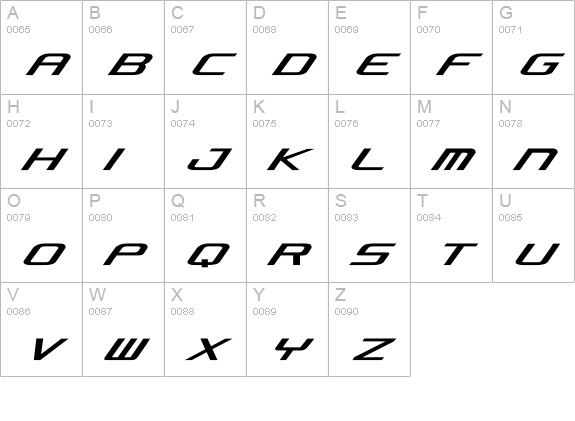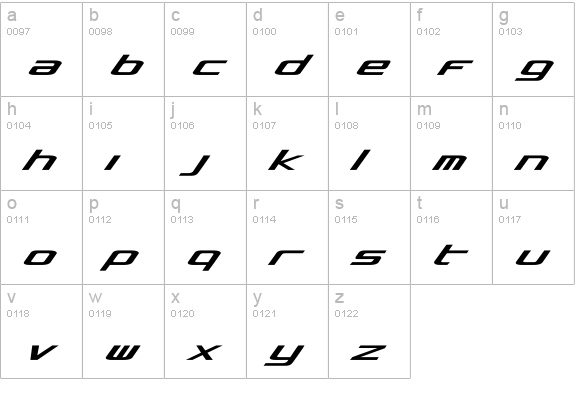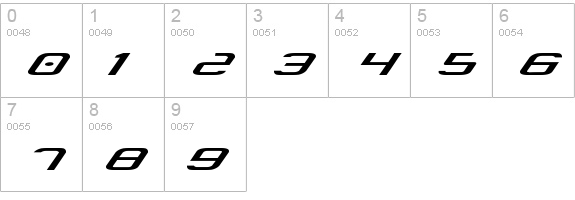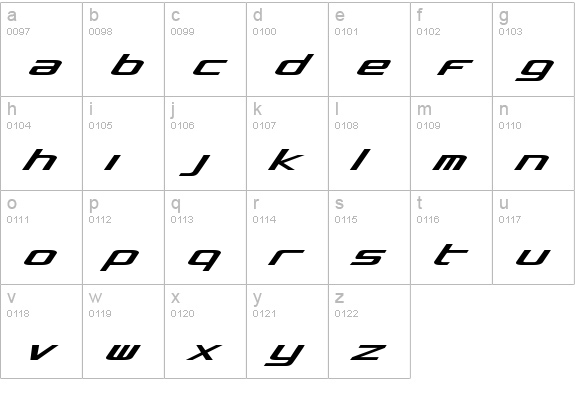
Concielian font is a modern and elegant typeface that exudes sophistication and style. Its sleek lines and smooth curves make it perfect for a wide range of design projects, from branding to editorial layouts. The versatility of Concielian font allows it to be utilized in both print and digital media, making it a valuable addition to any designer's toolkit. What sets Concielian font apart is not only its aesthetic appeal but also the fact that it is available for free download at FontsMarket.com. This means that you can access this stunning font without any cost, making it an accessible option for designers and creatives looking to enhance their projects without breaking the bank. Whether you're working on a logo, website, poster, or any other design project, Concielian font is sure to elevate your work and leave a lasting impression. Download this exquisite font for free at FontsMarket.com and unleash your creativity with Concielian's timeless beauty and versatility.